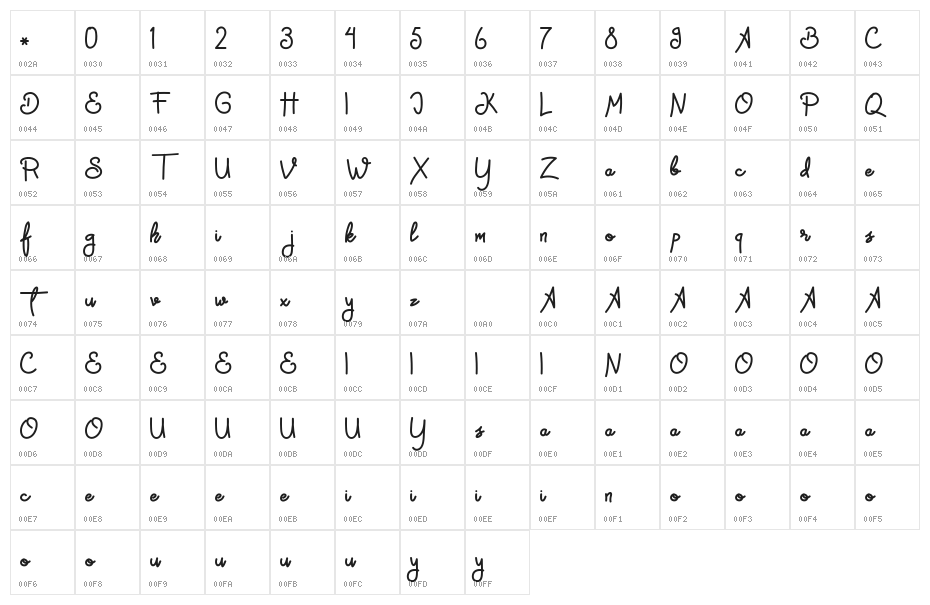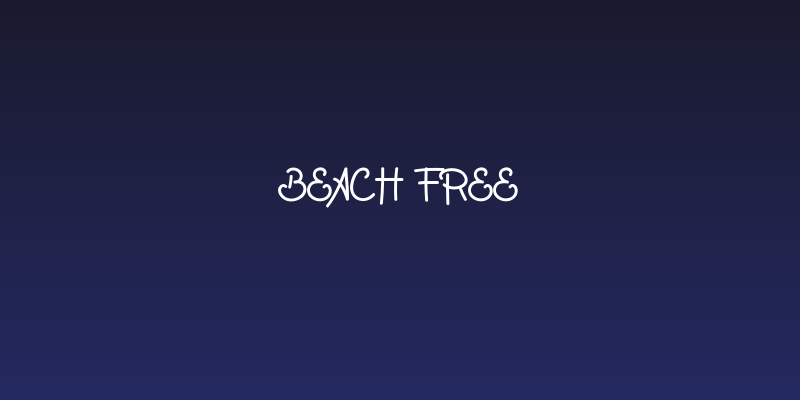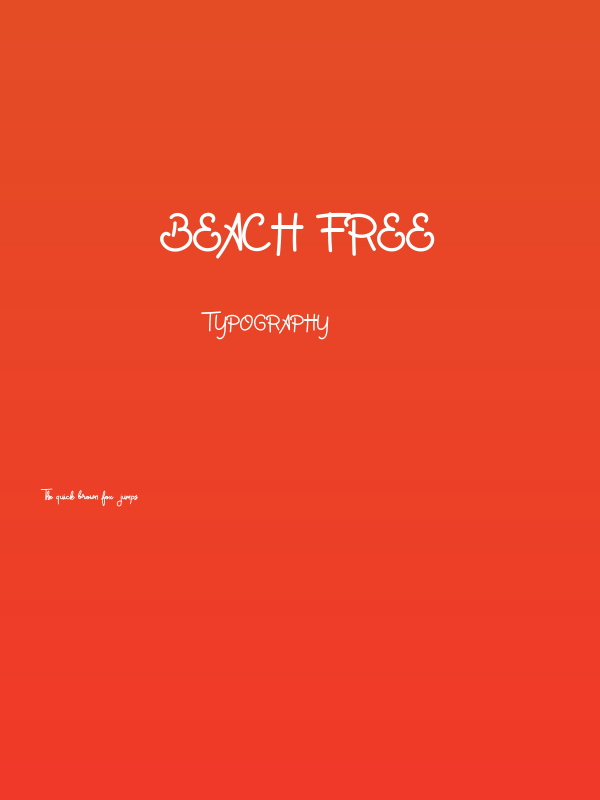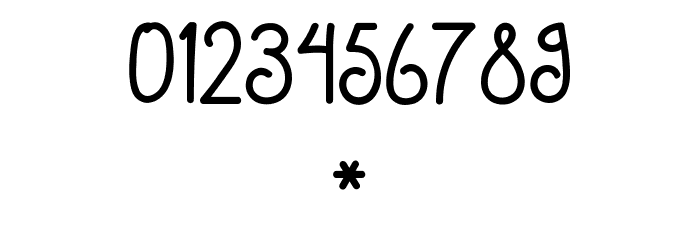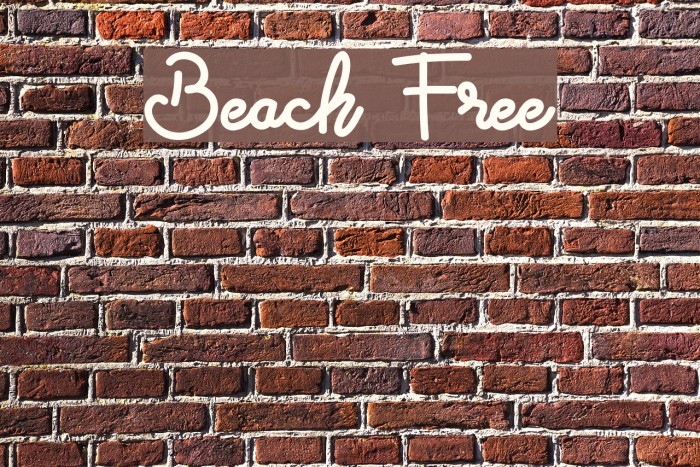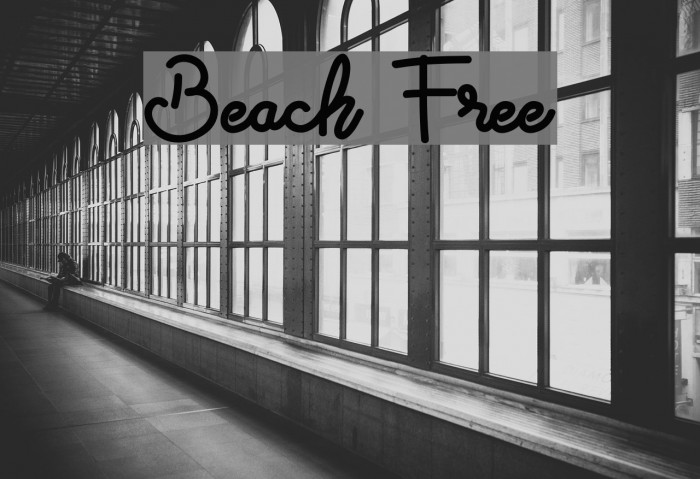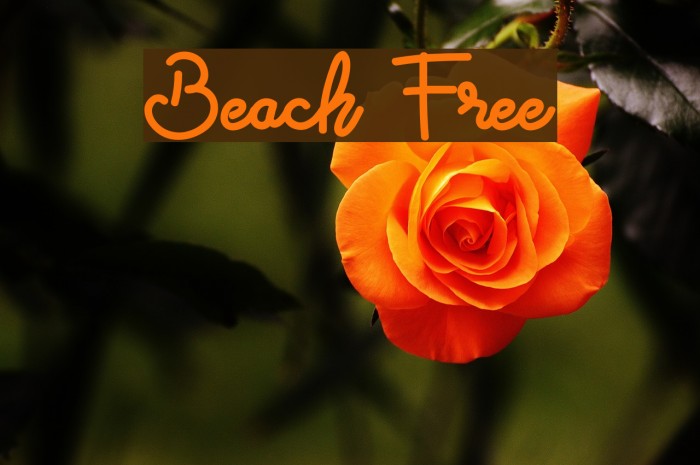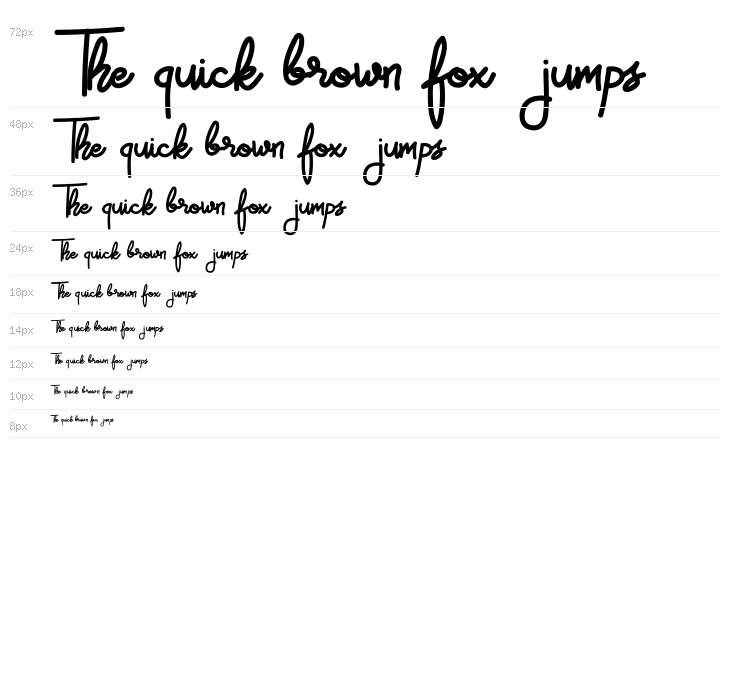
Beach Free Font
Beach Free Description
This playful and casual font features a handwritten style with a relaxed and informal appearance. The characters are slightly slanted, giving a dynamic and lively feel. The strokes are smooth and rounded, with a consistent thickness that maintains readability while adding a touch of whimsy. The uppercase letters are bold and prominent, while the lowercase letters are more fluid and connected, enhancing the handwritten aesthetic. The numbers and special characters follow the same style, ensuring uniformity across all elements. This font is perfect for projects that require a friendly and approachable look.